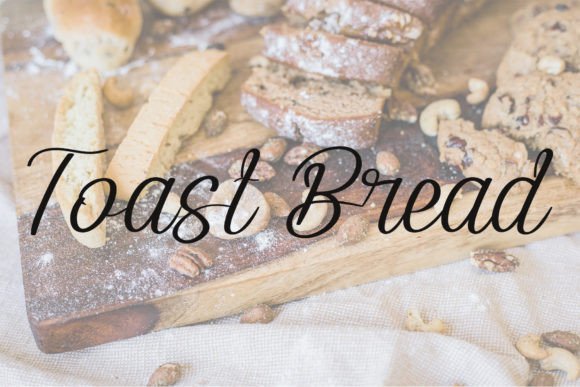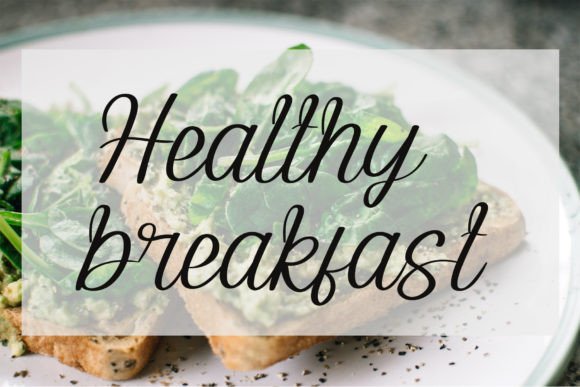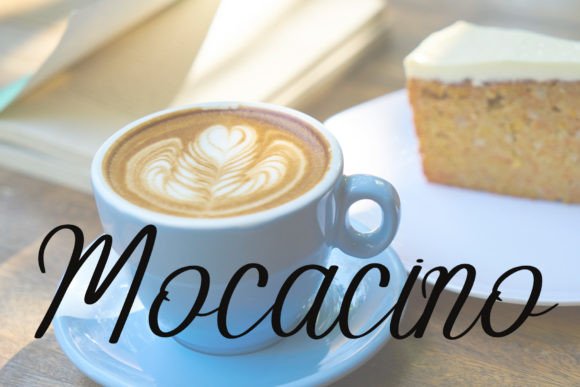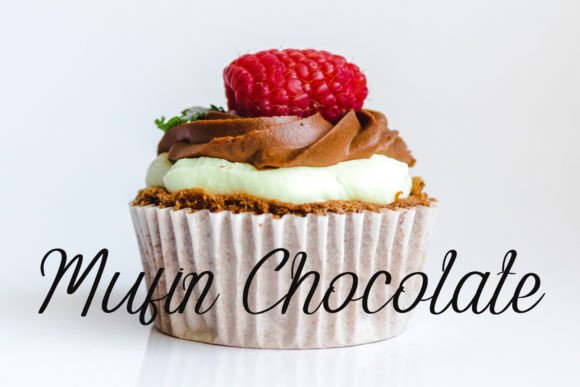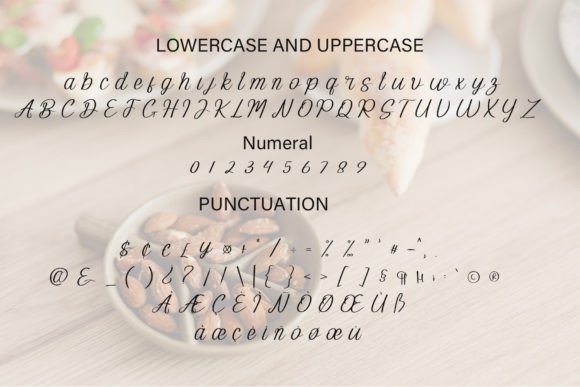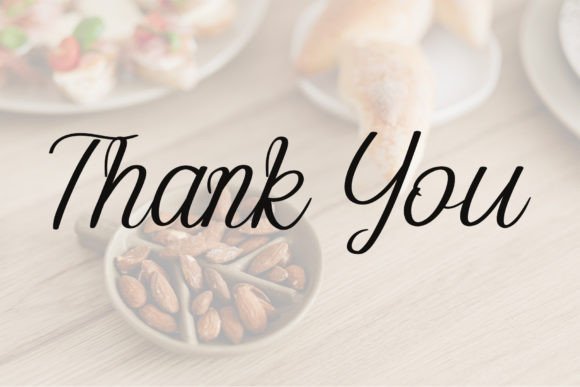
Introducing Almond Font: The Perfect Choice for Unique Designs
Are you tired of using the same old fonts in your designs? Look no further than Almond Font, a cute handwritten font that adds a touch of whimsy and individuality to any project. With its irregular and playful letterforms, Almond Font is perfect for designers and crafters who want to create something truly unique and eye-catching.
The Personality of Almond Font
Almond Font has a fun and quirky personality that shines through in its natural, handwritten style. The font’s irregular letterforms create a sense of movement and energy, making it perfect for designs that require a touch of playfulness. Whether you’re creating a logo, a poster, or a social media graphic, Almond Font is sure to add a charming and personal feel to your project.
What Makes Almond Font So Special?
So, what sets Almond Font apart from other fonts? Here are just a few things that make it so special:
- Unique Letterforms: Almond Font’s irregular letterforms create a sense of whimsy and individuality, making it perfect for designs that require a touch of uniqueness.
- Natural, Handwritten Style: The font’s natural, handwritten style adds a charming and personal feel to any project.
- Playful Personality: Almond Font has a fun and quirky personality that shines through in its playful letterforms.
- Versatile: Almond Font is perfect for a wide range of design projects, from logos and posters to social media graphics and more.
Uses for Almond Font
Almond Font is perfect for a wide range of design projects, including:
- Logos: Add a touch of whimsy and individuality to your logo with Almond Font.
- Posters: Create eye-catching posters with Almond Font’s playful letterforms.
- Social Media Graphics: Add a charming and personal feel to your social media graphics with Almond Font.
- Invitations: Create unique and eye-catching invitations with Almond Font.
- Crafting Projects: Almond Font is perfect for crafters who want to add a personal touch to their projects.
Almond Font is a unique and eye-catching font that adds a touch of whimsy and individuality to any design project. With its irregular and playful letterforms, natural handwritten style, and fun and quirky personality, Almond Font is perfect for designers and crafters who want to create something truly special. Whether you’re creating a logo, a poster, or a social media graphic, Almond Font is sure to add a charming and personal feel to your project.